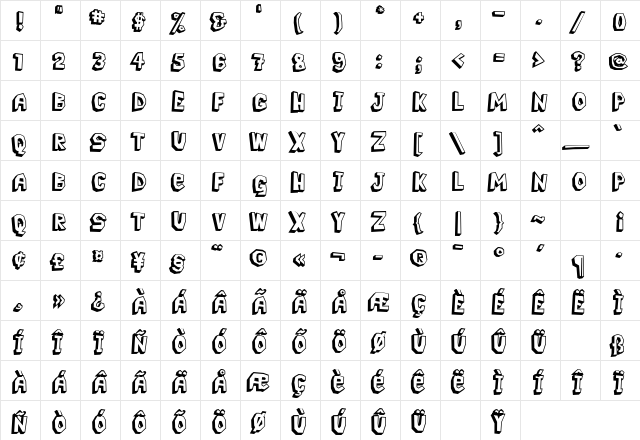
Pavement Logger Free Font
Pavement Logger
Style: Logger
Design Context for Pavement
Pavement is a composed and adaptable typeface that performs quietly and consistently across a wide range of design contexts.